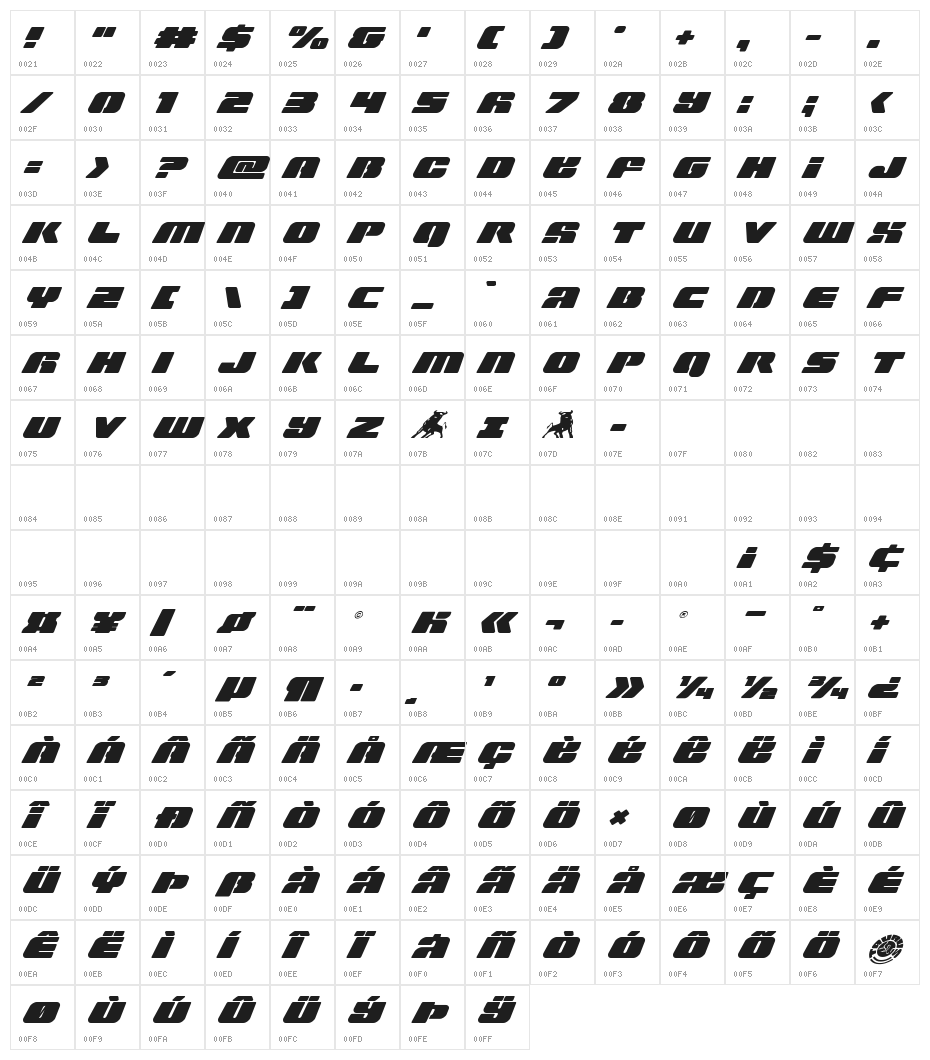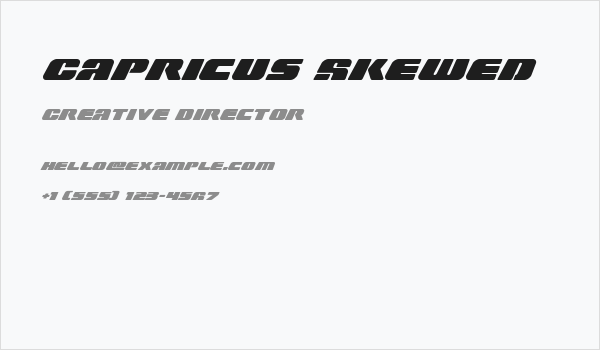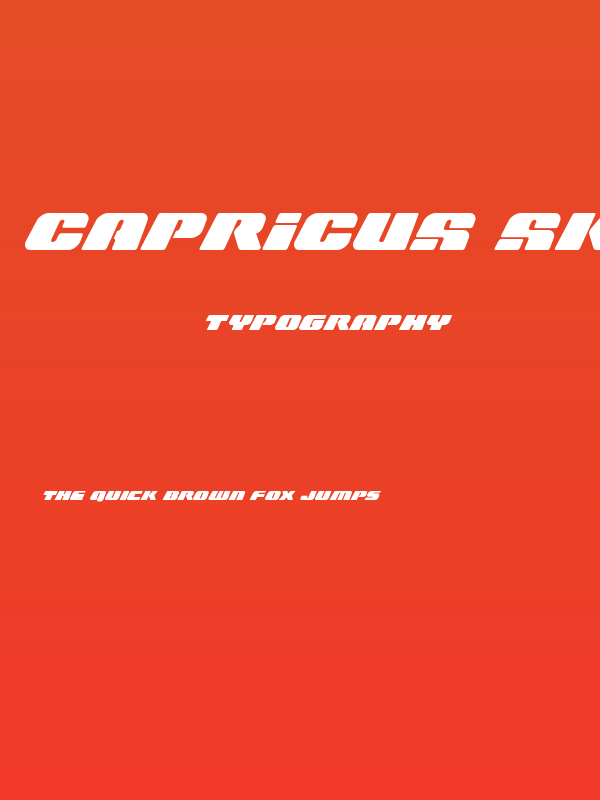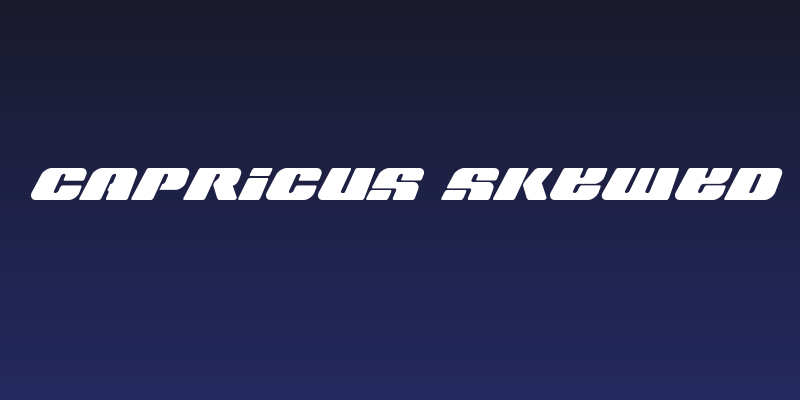
Capricus Skewed Font
Capricus Skewed Description
This font features a bold, futuristic design with a distinct skewed appearance, giving it a dynamic and forward-moving feel. The characters are wide and have a strong presence, making them ideal for attention-grabbing headlines or titles. The angular cuts and sharp edges contribute to its modern aesthetic, while the consistent stroke width across all characters ensures a uniform look. The font's style is reminiscent of sci-fi themes, with a touch of industrial design, making it suitable for projects that require a bold and modern typeface.
| Proposed Projects | Ideal for sci-fi themed posters, video game titles, technology branding, and futuristic product packaging. |